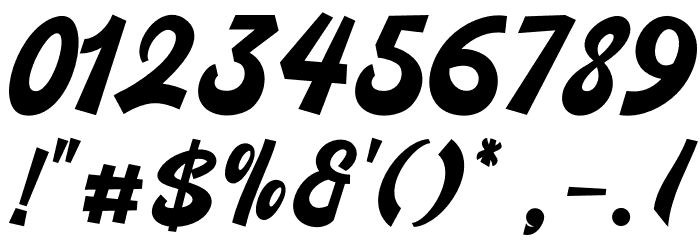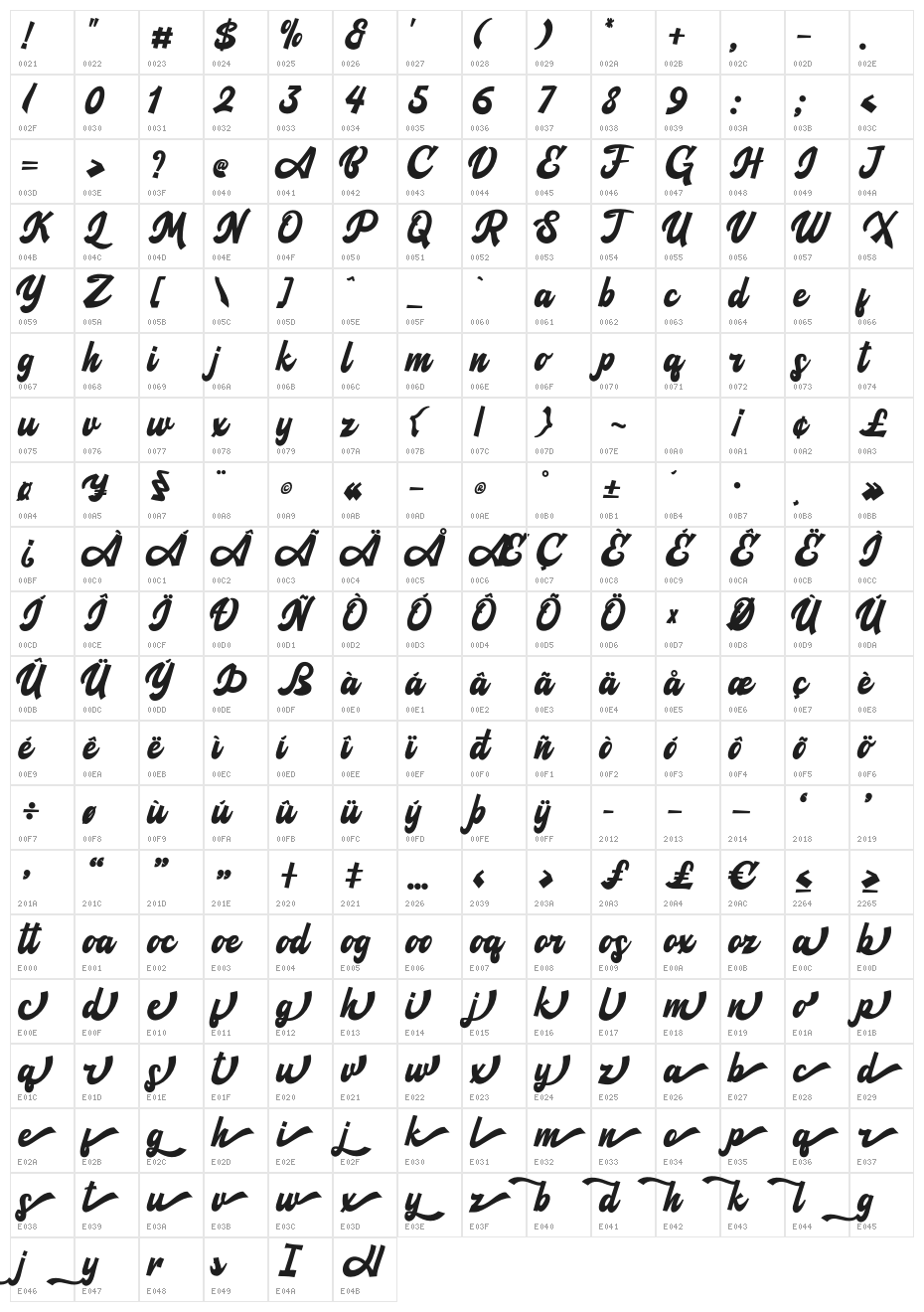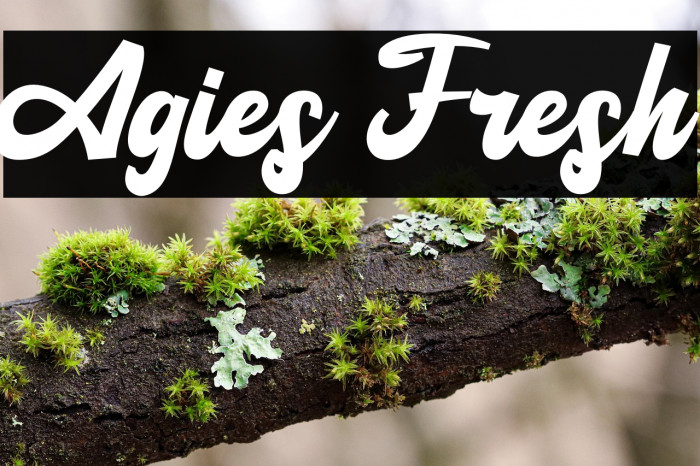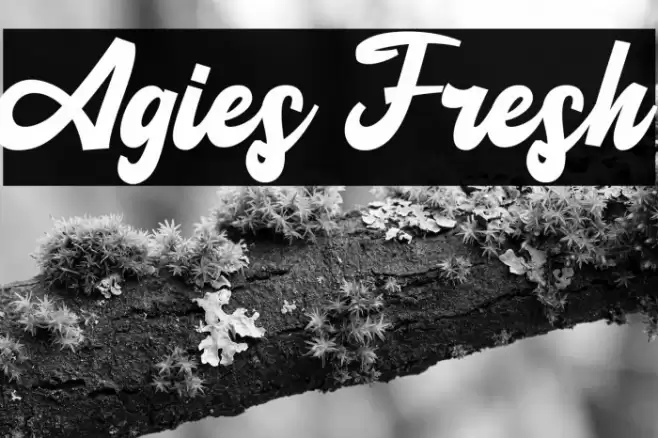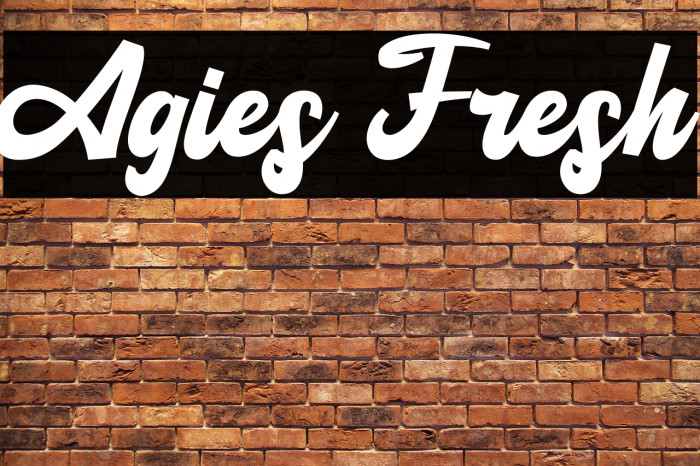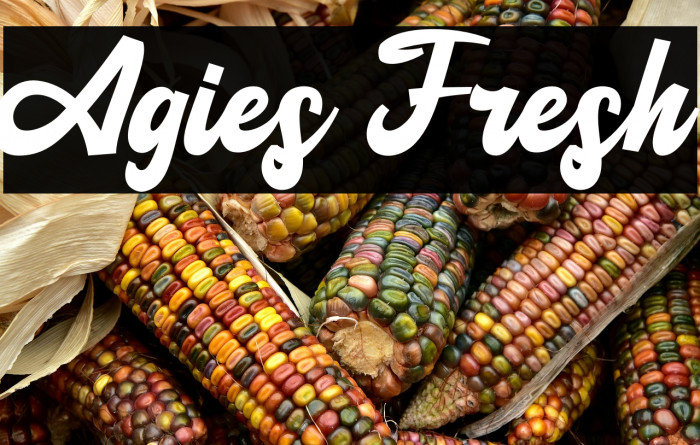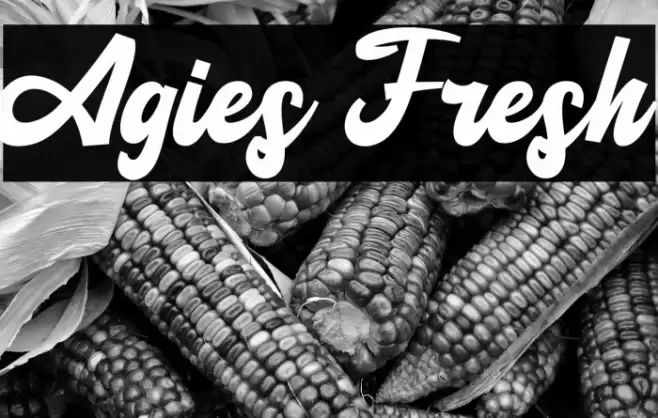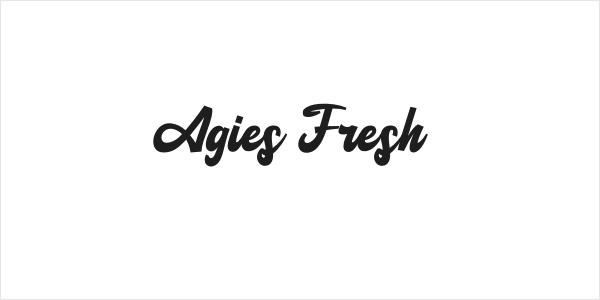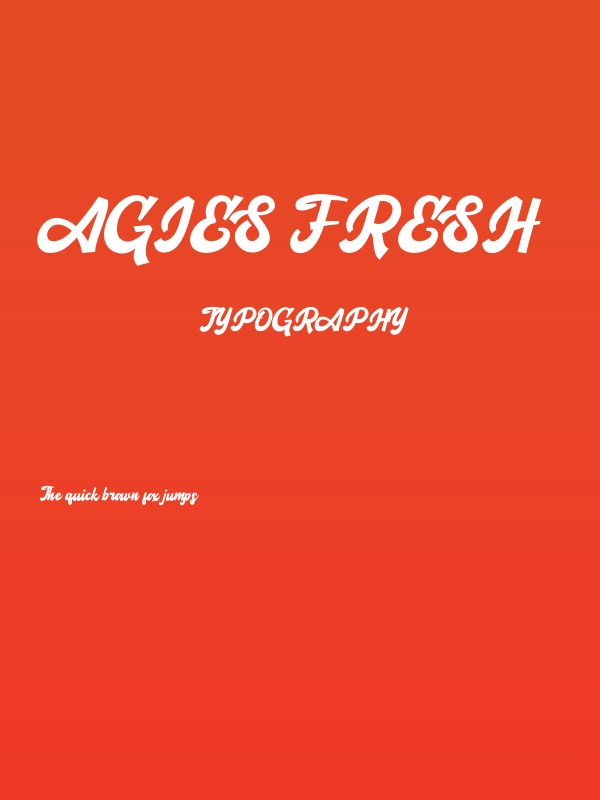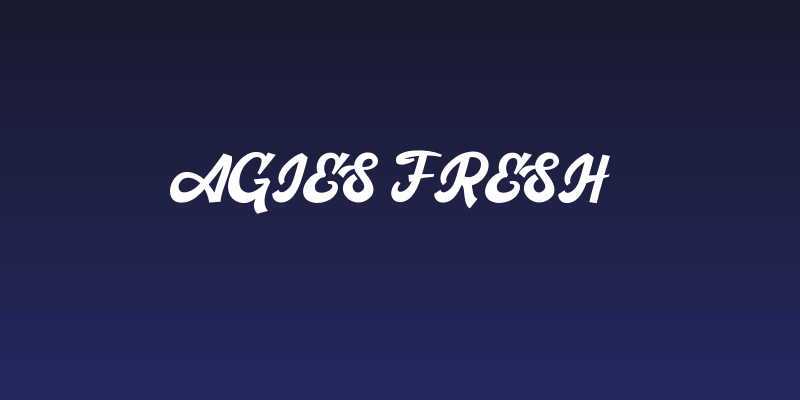
Agies Fresh Font
Agies Fresh Description
This font features a bold and dynamic script style with a strong presence. The letters are connected, giving it a fluid and continuous appearance, reminiscent of handwriting. The uppercase letters are slightly more ornate, with flourishes that add a touch of elegance. The lowercase letters maintain a consistent flow, enhancing readability while retaining a stylish flair. Numbers and special characters are designed to match the overall aesthetic, ensuring uniformity across all text. The font's bold weight and medium contrast make it suitable for impactful designs.